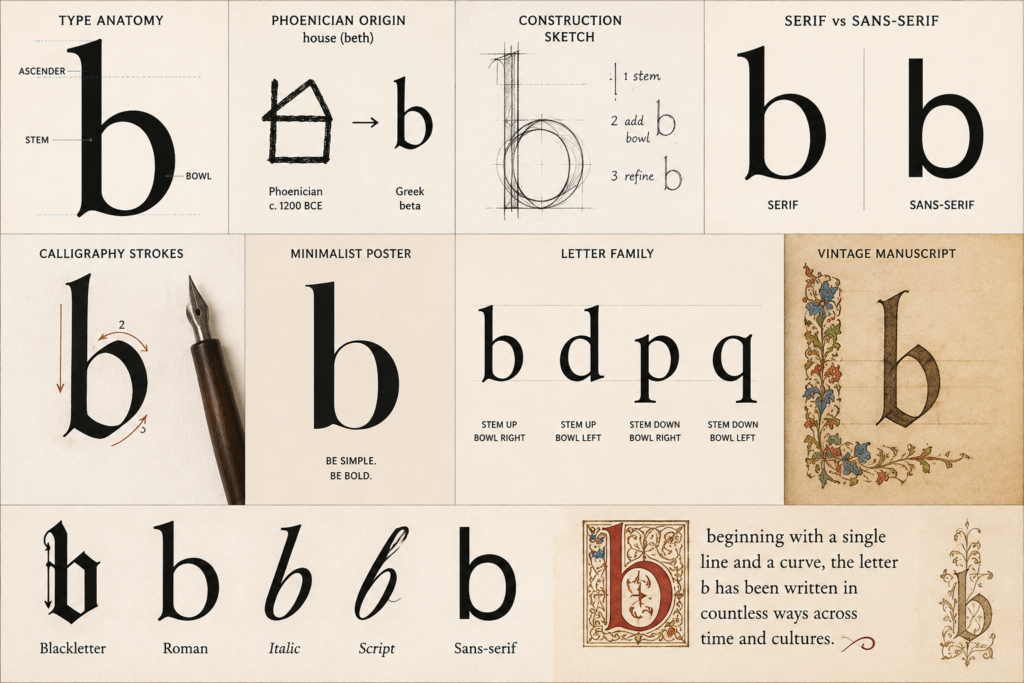
If “a” is the letter that terrifies type designers, “b” is the one that quietly does most of the heavy lifting. It looks simple — a stem and a bowl, done — but that simplicity is deceptive. “b” sets the visual template for an entire family of letters that lean on it structurally, which makes it one of the most important glyphs to get right early in the design process.
This is the second entry in our glyph series, where we’re working through every character a font needs, letter by letter. Last time we covered lowercase “a.” Today, we’re looking at “b.”
A Short History of “b”
Like “a,” the letter “b” traces its roots back to the Phoenician alphabet, to a character called beth, which meant “house.” The early pictogram was thought to resemble the floor plan of a simple dwelling — a shape with a defined interior space, which, if you squint, isn’t too far off from the enclosed bowl shape “b” still carries today.
The Greeks borrowed beth and turned it into beta, straightening out its lines into something closer to our modern capital B. Beta then passed to the Etruscans and into Latin, where the Romans locked in the capital B we still use — two stacked bowls attached to a vertical stem.
The lowercase form followed a different path, the same way lowercase “a” did. Roman inscriptions were capitals-only, and it wasn’t until scribes started writing quickly by hand, and later under the standardization pushed during the Carolingian Renaissance, that a distinct minuscule “b” emerged. Writing fast with a pen naturally simplified the double-bowl capital into a single ascending stem with one rounded bowl at the bottom — a shape that was quicker to write and easier to read at small sizes. That Carolingian minuscule “b” is essentially the letter you’re reading in this sentence, more or less unchanged for over a thousand years.
Anatomy of a Lowercase “b”
Lowercase “b” is built from two main components: the ascender, a vertical stem that rises above the x-height, and the bowl, the rounded enclosed shape that sits at the bottom and attaches to the stem.
The point where the stem meets the bowl is called the joint, and it’s one of the most scrutinized spots in the whole letterform — similar to the junction in “a.” If the joint is too abrupt, the letter feels stiff and mechanical. If it’s too soft or rounded, “b” can start to look mushy or lose definition at small sizes. Type designers spend a disproportionate amount of time getting this single curve right.
Because “b” shares its basic stem-and-bowl structure with “d,” “p,” and “q,” it often functions as a reference letter. Designers frequently draw “b” and then mirror or rotate it to rough out those other letters before adjusting each individually — this is part of why type designers describe “b,” “d,” “p,” and “q” as a structural family within the alphabet, even though each needs its own optical corrections rather than a literal mirror-image copy.
The bowl itself typically shows a slight overshoot past the baseline and x-height, just like the bowl in “a” — rounded shapes need to extend a hair beyond straight guidelines to look optically consistent with letters that have flat tops and bottoms.
Designing the Letter From Scratch
When a type designer sits down to draw “b,” they usually start with the stem, since its height and weight set a baseline for every other ascending letter in the font — “b,” “d,” “h,” “k,” “l,” and often “f” and “t” all take cues from this first vertical stroke.
Next comes the bowl. This is where most of the letter’s personality shows up. A wide, generous bowl gives “b” a friendly, open feel; a tighter, narrower bowl makes it look more condensed and formal. The bowl’s curvature also has to match the curvature established in “a” and “o,” since inconsistent curve tension between round letters is one of the fastest ways to make a typeface look amateurish or unfinished.
The joint between stem and bowl gets drawn and redrawn more than almost any other detail in the letter. Designers typically test it at multiple sizes, since a joint that reads cleanly at 60pt on a screen can clog into a dark blob at 8pt in print. Many type designers actually print out test proofs at small sizes specifically to catch these ink-trap problems before finalizing the curve.
Once “b” is finalized, it becomes a working template — designers check “d,” “p,” and “q” against it, adjusting each so the whole family feels unified without looking like lazy mirror-copies of one shape.
Unique Facts About “b”
“b” is one of the least frequently used letters in English, showing up far less often than vowels or letters like “n” and “t” — but it’s disproportionately important in font design because of its structural relationships with “d,” “p,” and “q.” Get “b” wrong, and you’ve effectively gotten three other letters wrong too.
Interestingly, in some blackletter and heavily calligraphic script fonts, “b” keeps a much closer resemblance to its Carolingian ancestor than almost any other lowercase letter, since its ascender-plus-bowl shape was already close to ideal for a broad-nib pen and never needed much revision.
Summary
Lowercase “b” looks unassuming, but it’s a structural anchor for the entire lowercase alphabet — sharing its bones with “d,” “p,” and “q,” and setting the tone for every ascending letter that follows it. From its origins as a house-shaped Phoenician pictogram to the streamlined stem-and-bowl form scribes settled on over a thousand years ago, “b” has stayed remarkably stable while still leaving plenty of room for a type designer’s personality to show through in the curve of its bowl. Next up: lowercase “c,” the letter that’s really just an open circle with an identity crisis.